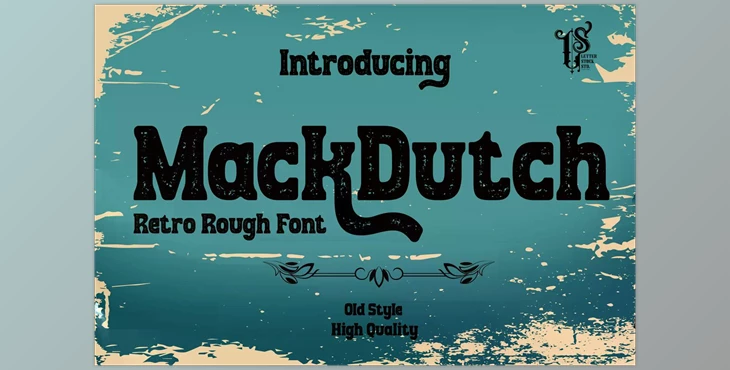
MackDutch – Rough decorative font:
MackDucth font was inspired by old magazines that I saw in the barbershop. It was created by hand to give an authentic handmade feel to its branding identity. Then, I created it with petrol.
We have added some roughness to give it a retro look This font is strong and can be strong when used to brand your business or as a title of your retro poster.
Opentype has MackDucth font which is a wonderful rough typeface that looks good on logotypes labels, t-shirt prints, labels as well as invitations, packaging for products advertising, and many more.